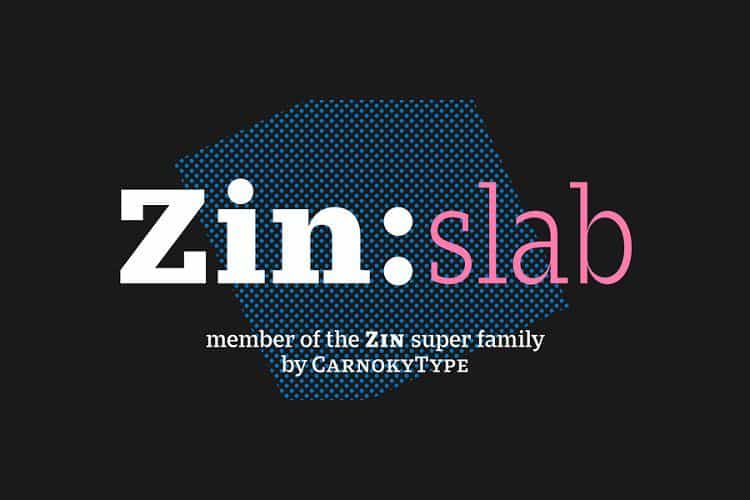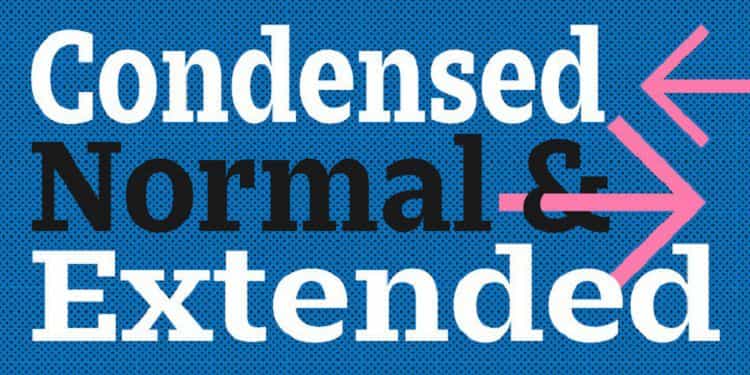
Zin Slab is a modern slab-serif typeface created for different types of typography. The main characteristic is the large x-height and bayans which are between neutral construction of letters (strictly vertical axis) and dynamic open forms (opened terminals). The other usual characteristic of the font is a visually narrower link between stems and strokes.